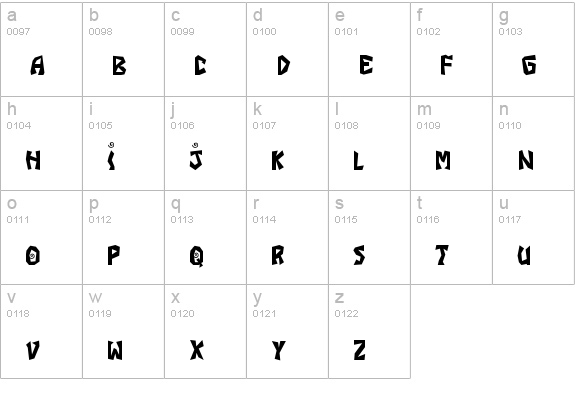
JI Burrito Font Details
JI Burrito is a unique and stylish font that brings a fun and modern vibe to any design project. With its playful curves and bold lines, this font is perfect for adding a touch of personality to your creations. Whether you're designing posters, logos, or social media graphics, JI Burrito is sure to make a statement. The best part is, JI Burrito is completely free to download at FontsMarket.com. That's right, you can access this eye-catching font without spending a dime. So why wait? Give your designs a fresh and lively look with JI Burrito today!